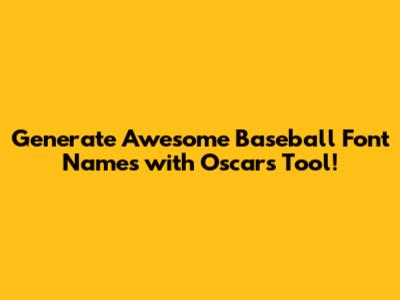
Hey baseball fans and design aficionados! Ever found yourself staring at a blank canvas, needing that perfect font to capture the spirit of the game? Maybe you're designing a team logo, a fan jersey, or even a website dedicated to America's favorite pastime. Well, guess what? We've got something super cool for you today: the Oscarbaseballsc font name generator! This isn't just any old font generator, guys; it's your new secret weapon for finding that iconic baseball-inspired typography that'll make your project pop. We're talking about fonts that scream 'home run,' 'grand slam,' and 'walk-off win' all at once. Get ready to dive into the exciting world of baseball fonts and discover how this handy tool can revolutionize your design process. So, grab your virtual bats and get ready to swing for the fences with some seriously stylish fonts!
Why Baseball Fonts Are a Grand Slam for Design
Let's talk about why baseball fonts, in particular, have such a special place in the hearts of designers and fans alike. Think about the classic baseball aesthetic – it's steeped in tradition, history, and a whole lot of grit. These fonts often evoke a sense of nostalgia, reminding us of dusty ballparks, crackling radio broadcasts, and the roar of the crowd. The visual language of baseball is incredibly powerful, and the right font is key to tapping into that. We're not just talking about simple lettering; we're talking about fonts that carry the weight of legendary players, iconic stadiums, and unforgettable moments. When you use a font that truly embodies the spirit of baseball, you're not just adding text; you're adding a piece of the game's soul to your design. This is especially true for sports branding, where a strong visual identity is crucial for connecting with fans and building team spirit. A well-chosen baseball font can instantly communicate passion, dedication, and a winning attitude. Whether it's the bold, blocky style of vintage lettering or the sleek, modern feel of a contemporary sports font, each has its own unique charm and appeal. The Oscarbaseballsc font name generator is designed precisely to help you navigate this rich landscape of typographic styles, offering a curated selection that captures the essence of the game. Forget generic fonts that blend into the background; with the right baseball font, your design will stand out, making a powerful statement that resonates with the true spirit of competition and camaraderie. It’s about capturing that electric atmosphere of game day and translating it into a visual format that everyone can feel. So, before you even start designing, think about the feeling you want to evoke. Do you want something classic and timeless, or something bold and aggressive? The font you choose is your first and perhaps most important decision.
Unveiling the Oscarbaseballsc Font Name Generator Magic
Alright, guys, let's get down to the nitty-gritty of what makes the Oscarbaseballsc font name generator so darn special. It’s not just about spitting out random names; it's about creating names that feel like baseball. Think about the iconic names in baseball history – they're legendary, evocative, and often have a certain rhythm to them. This generator aims to capture that same essence. Whether you're looking for something that sounds like a powerful slugger, a speedy base-stealer, or a legendary pitcher, this tool has you covered. It taps into the core elements of baseball culture: the thrill of the game, the dedication of the athletes, and the pride of the fans. We've programmed it to understand the nuances of baseball terminology and the overall vibe of the sport. So, when you use it, you’re not just getting a font name; you’re getting a name that carries the spirit of baseball. Imagine creating a logo for a fictional team called the 'Ironclads' or a fan apparel line named 'Diamond Dust.' These names aren't just words; they tell a story and evoke a strong sense of identity. The generator can help you brainstorm these kinds of impactful and memorable names. It’s like having a brainstorming partner who’s a lifelong baseball fanatic and a typography expert rolled into one. The sheer variety of names you can generate is astounding, ranging from classic and traditional to modern and edgy. This makes it an invaluable resource for anyone involved in sports design, marketing, or even just creating personal projects related to baseball. The Oscarbaseballsc font name generator simplifies the often-challenging task of finding the perfect name, providing inspiration and guiding you towards a choice that perfectly complements your design vision. It's all about making the creative process smoother, more enjoyable, and ultimately, more successful. We want to help you hit a home run with your naming, every single time!
How to Use the Generator Like a Pro
Using the Oscarbaseballsc font name generator is as easy as stealing second base! Seriously, it’s designed to be super user-friendly, so you can spend less time fiddling with settings and more time designing. The first step is simple: just head over to the generator. Once you're there, you'll usually find a prompt or a few options to guide your input. Think about the vibe you're going for. Are you designing for a professional team, a little league squad, or maybe a fantasy league? Knowing this can help you tailor the results. You might be asked to input a keyword, like 'power hitter,' 'speed demon,' or 'championship.' Or perhaps you can select categories like 'classic,' 'modern,' or 'aggressive.' The more specific you are, the better the results will be. For example, if you input 'fast' and 'pitcher,' you might get names like 'Velocity Strike' or 'Slider Speed.' If you input 'heavy' and 'hitter,' you could see names like 'Mighty Swing' or 'Power Drive.' The generator then takes these inputs and crafts unique font names that are infused with baseball lingo and spirit. It’s like a linguistic baseball mashup! Don’t be afraid to experiment. Try different combinations of keywords and categories. Sometimes the most unexpected inputs yield the most brilliant results. For instance, combining a traditional baseball term with a modern design concept could lead to something truly original. Once the generator provides you with a list of names, take your time to review them. Read them aloud. Do they sound good? Do they fit the aesthetic of your project? Consider the visual implications of the name – does it inspire a certain style of lettering? If you find a name you love, great! If not, don't get discouraged. Just hit the generate button again or tweak your inputs and try once more. The beauty of this tool is its ability to offer endless possibilities. Think of it as your personal typography coach, helping you find the perfect name to inspire the perfect font. Mastering the Oscarbaseballsc font name generator means understanding its potential and playing around with it until you strike gold. It's all about exploration and finding that perfect name that will make your design a true MVP!
Tips for Picking the Ultimate Baseball Font Name
So, you've got a list of names from the Oscarbaseballsc font name generator, but how do you pick the one? This is where the real magic happens, guys. It’s not just about picking the coolest-sounding name; it's about choosing a name that aligns perfectly with your project and evokes the right emotions. First off, consider the context. Are you designing for a professional MLB team? Then you might lean towards names that sound classic, strong, and authoritative, like 'Diamond Dynasty' or 'League Champion.' If it's for a local youth league, something more playful and energetic, like 'Little Slugger' or 'Rookie Rush,' might be a better fit. The name should instantly tell people what kind of project they're looking at. Secondly, think about the visual appeal. When you see a font name, does it conjure up a particular style of lettering in your mind? A name like 'Fastball Font' might suggest a sleek, dynamic typeface, while 'Grit & Grind' could imply a rougher, more textured look. The best font names inspire the actual font design. It's a symbiotic relationship! Third, say it out loud. Does it roll off the tongue? Is it easy to remember and pronounce? Awkward or overly complicated names can be a real turn-off. You want something catchy and memorable. Fourth, check for uniqueness. While the generator provides unique combinations, it's always a good idea to do a quick search to ensure your chosen name isn't already heavily associated with another famous font or brand, especially if you plan to use it commercially. Originality is key to making your design stand out. Finally, trust your gut. Sometimes, a name just feels right. It resonates with you and perfectly captures the essence of what you're trying to achieve. Don't overthink it too much. The Oscarbaseballsc font name generator gives you a fantastic starting point, but the final decision is yours. Pick the name that excites you the most, the one that makes you say, 'Yeah, that's the one!' It's the name that will help your design score big!
Beyond the Generator: Crafting Your Baseball Identity
While the Oscarbaseballsc font name generator is an incredible tool for finding that killer font name, remember that it's just one piece of the puzzle when it comes to creating a powerful baseball identity. A great font name and the font itself are crucial, but they work best when they're part of a larger, cohesive strategy. Think about the entire visual language of your project. This includes your color palette – are you going for traditional team colors, or something more unconventional? Does your color scheme complement the vibe of the font name? It’s about creating a unified look and feel. Consistency is king in branding, and that applies to every element, big or small. Beyond colors, consider other graphic elements. Are there any accompanying icons, mascots, or patterns that will be used? How do these elements interact with your chosen font? For instance, if you've chosen a vintage-style baseball font, you might want to incorporate distressed textures or retro-inspired graphics to enhance that feel. Conversely, a modern, sleek font name might pair well with clean lines and minimalist design elements. The Oscarbaseballsc font name generator helps you nail the typographic voice, but you need to build the rest of the symphony around it. Also, don't forget about the context in which your font will be used. Is it primarily for digital use on a website or social media, or will it be printed on merchandise like jerseys and hats? Different mediums have different requirements, and your font choice should be versatile enough to work well across them. A font that looks amazing on a screen might be illegible when embroidered on a cap. Thinking about usability and readability is just as important as aesthetics. Ultimately, creating a strong baseball identity is about telling a story. The font name you choose, the font itself, the colors, and the graphics all contribute to that narrative. The Oscarbaseballsc font name generator is your starting point for the textual chapter of that story, ensuring it’s engaging, memorable, and perfectly pitched. So, use it wisely, and then build an unforgettable baseball brand around it that will have fans cheering for more!